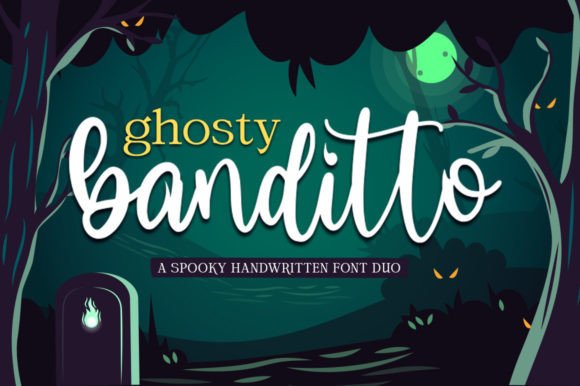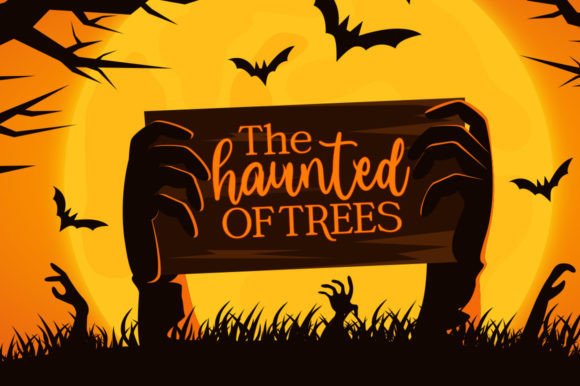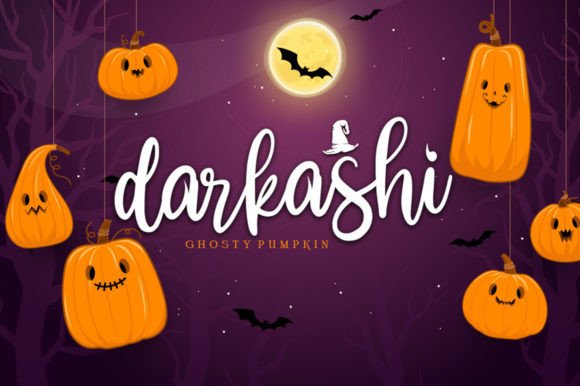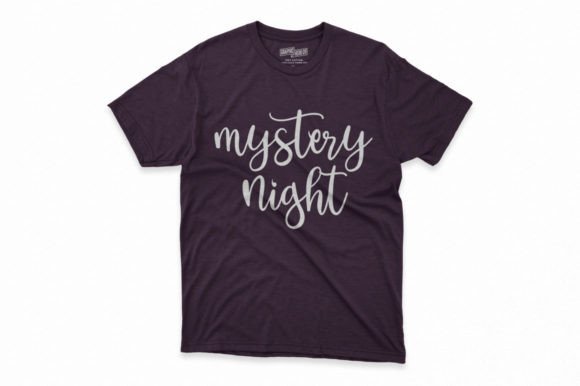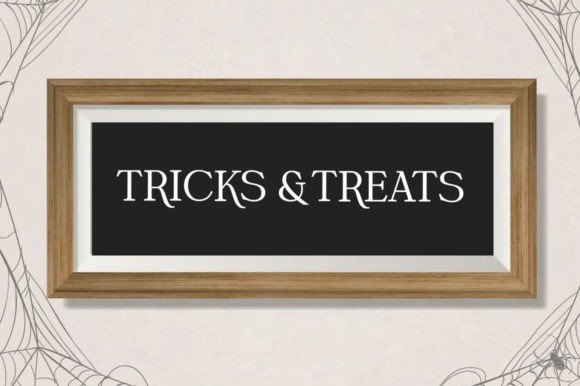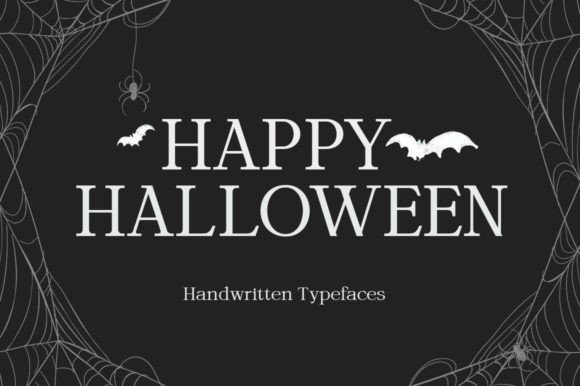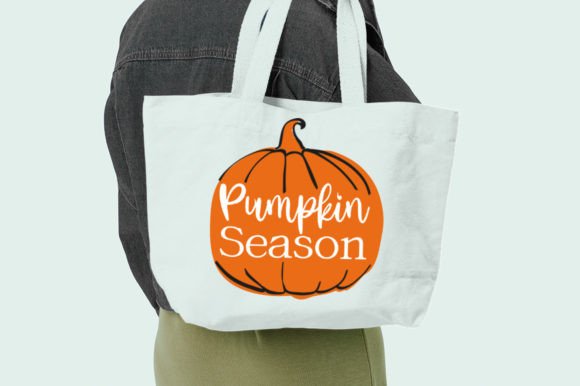
Ghosty Banditto Font
About Ghosty Banditto Font
“Ghosty Banditto” is a delightful font duo featuring both a script and serif typeface. This versatile combination makes it perfect for a variety of design applications, from thick watercolor designs to handwriting styles. Whether you’re working on blog titles, posters, wedding elements, t-shirts, clothing, book covers, business cards, greeting cards, branding, merchandise, or any other creative project, “Ghosty Banditto” offers the flexibility and style to make your designs shine.
The duo’s charm lies in its ability to cater to a wide range of design needs. The script typeface adds a touch of elegance and fluidity to your projects, while the serif typeface provides a more classic and structured appearance. This pairing allows you to create visually appealing compositions that strike a balance between creativity and readability.
With “Ghosty Banditto” in your font arsenal, you have the tools to experiment with various design styles and bring your creative vision to life. Whether you want to create a vintage-inspired poster, a modern branding identity, or elegant wedding stationery, this font duo provides the versatility and charm to meet your design goals.
In summary, “Ghosty Banditto” is a valuable font duo that offers a perfect blend of elegance and versatility for your creative projects. Its combination of script and serif typefaces allows you to experiment with different design styles and create visually captivating compositions. Whether your design needs are modern, classic, or eclectic, “Ghosty Banditto” has you covered, making your projects stand out with style and flair.